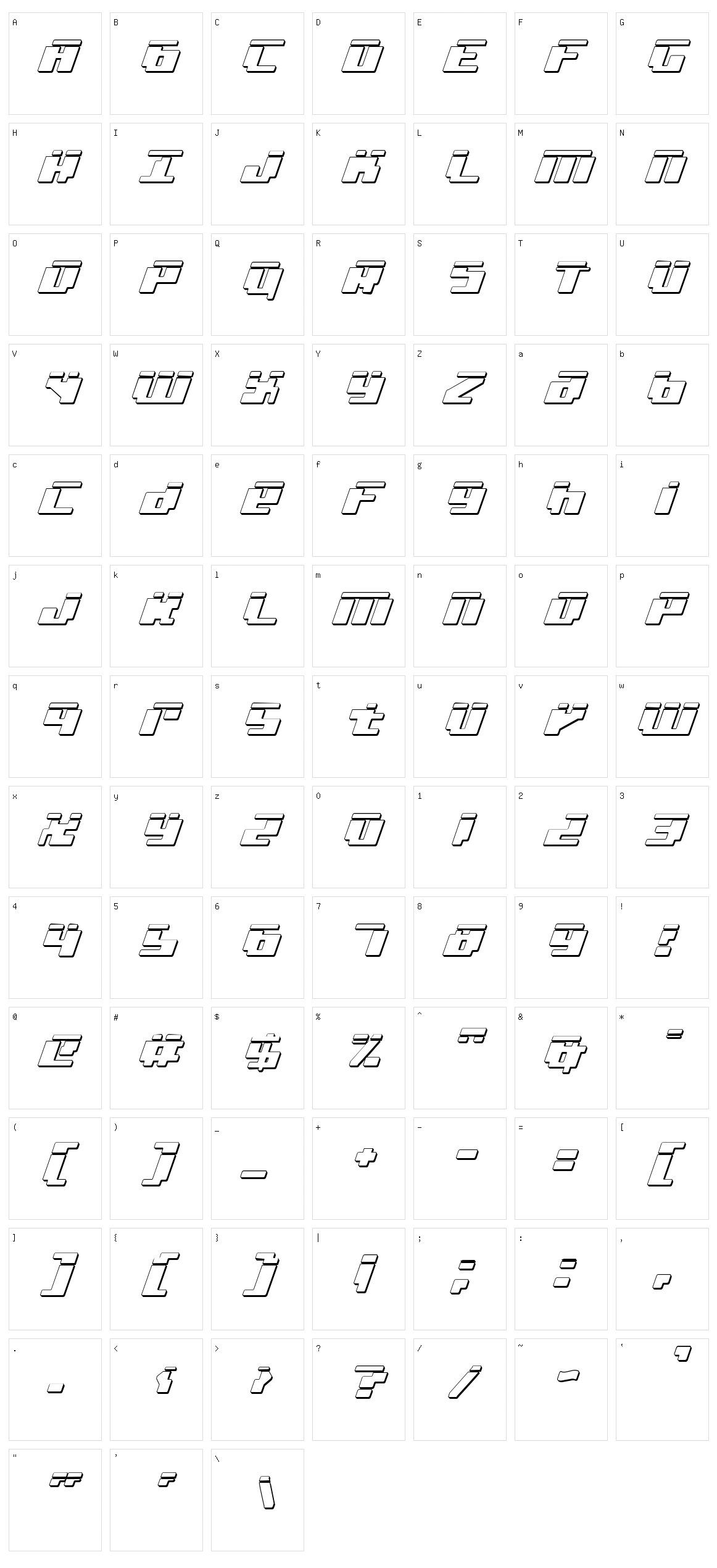
Bad Robot
This font comes in 8 versions - Regular, Italic, 3D, 3D Italic, Laser, Laser Italic, 3D Laser and 3d Laser Italic
This font has several alternate characters in the upper and lower cases.